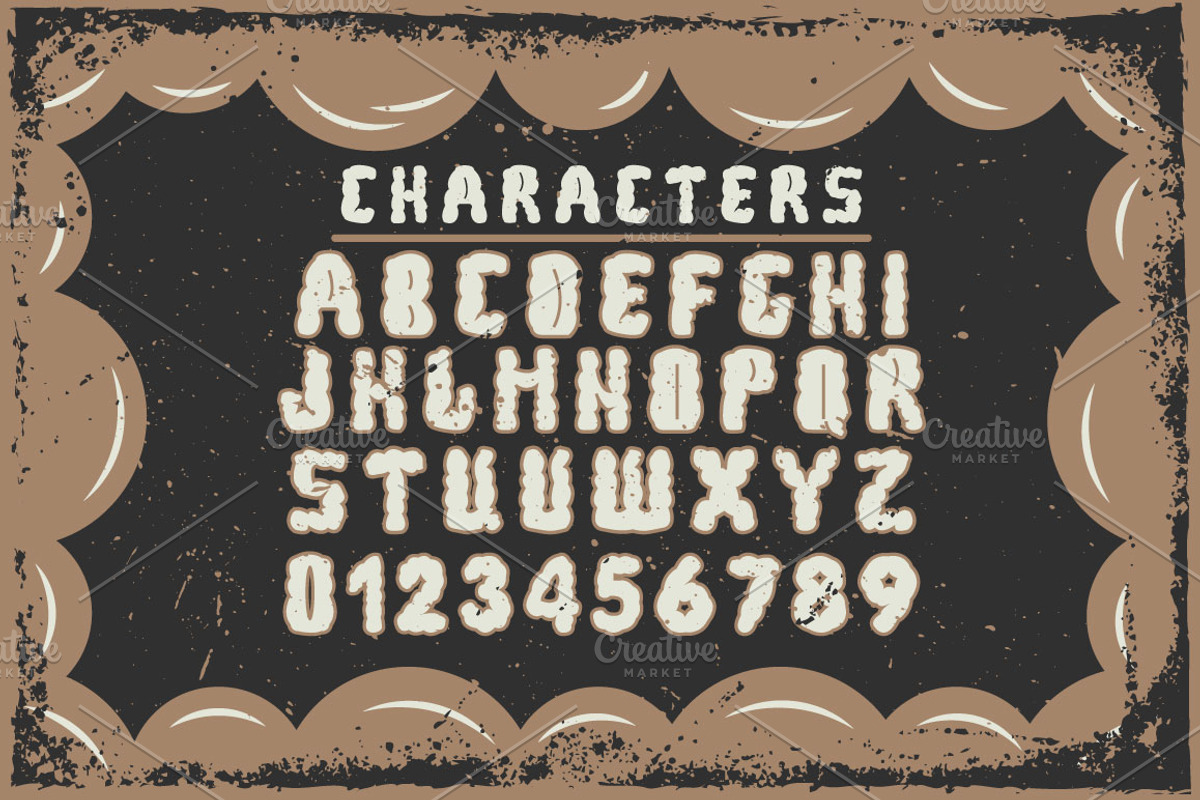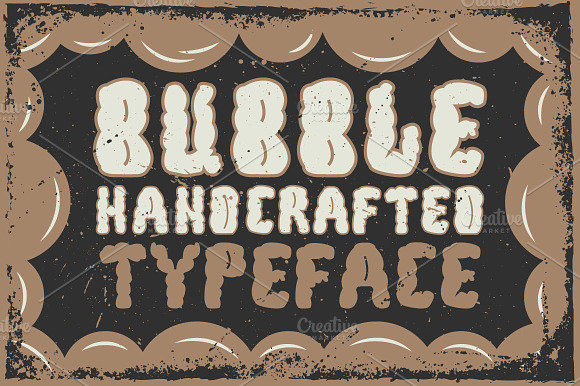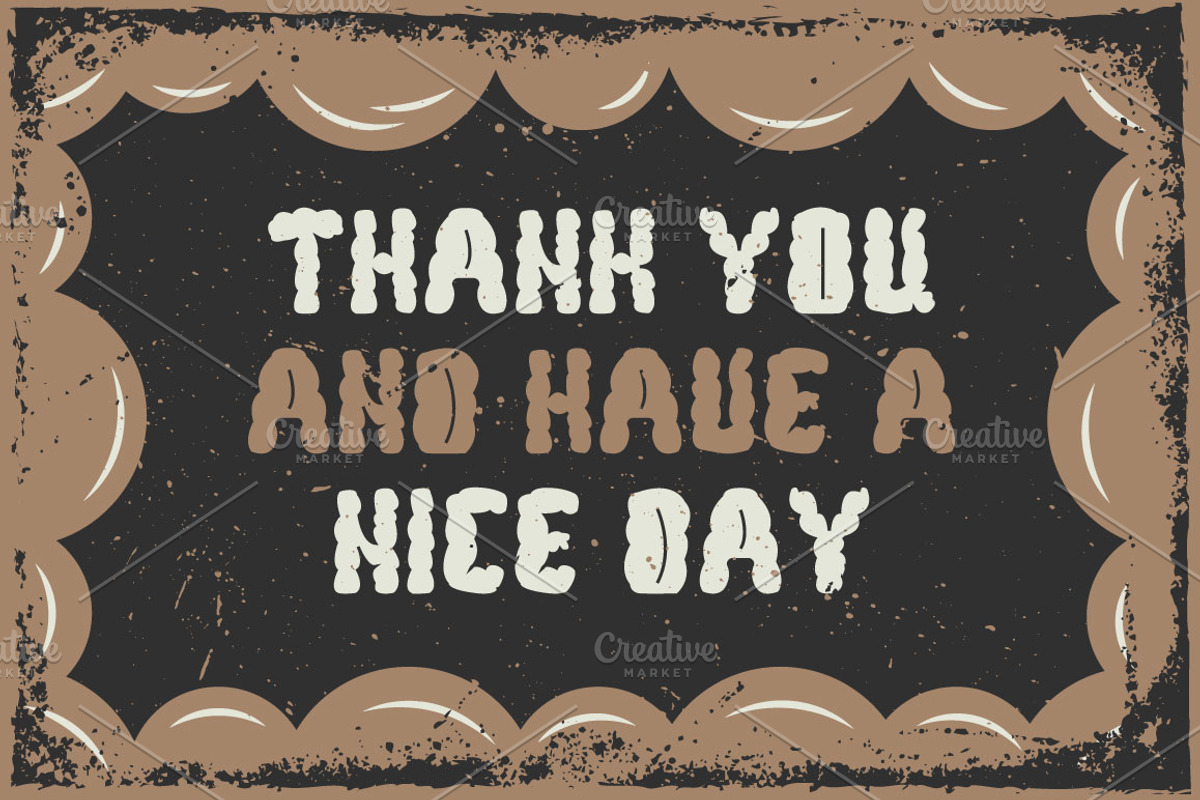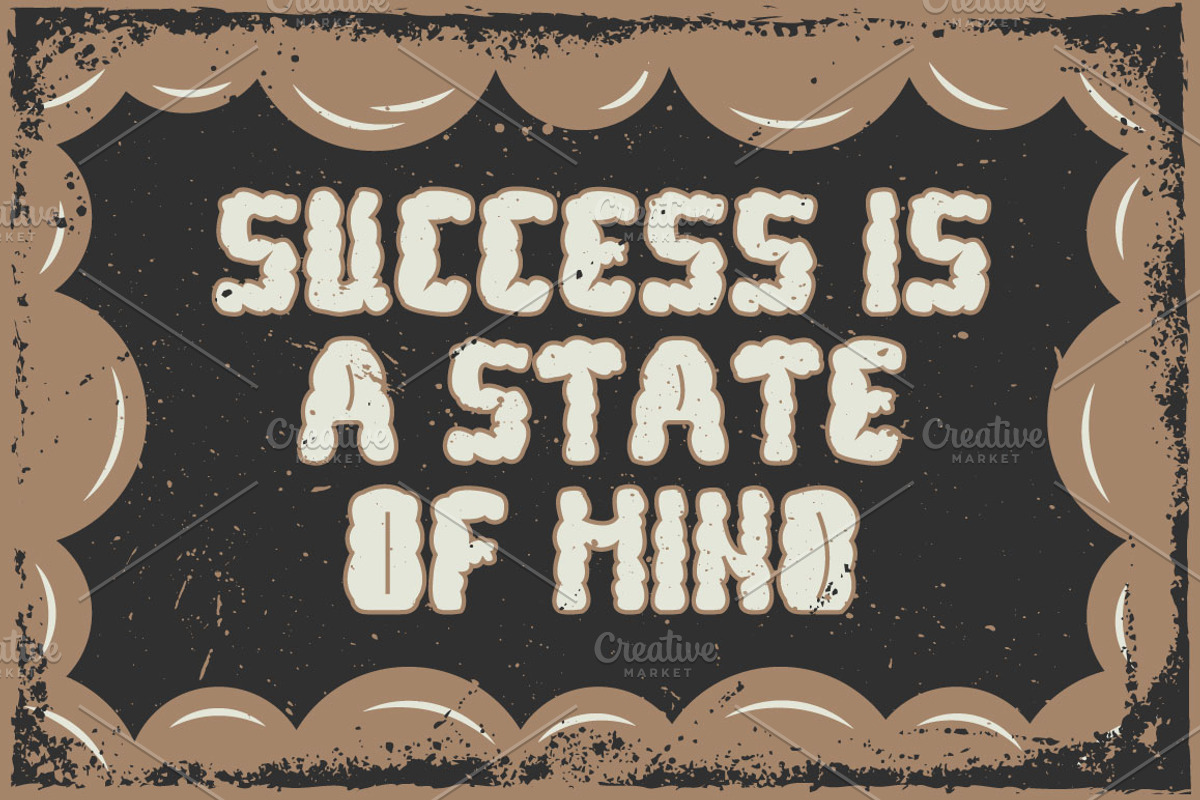
Handcrafted "Bubble" font
Introducing a vintage label typeface called "Bubble". It's made in bubble and vintage label style. Typeface looks great on any label designs and t-shirts.
Handcrafted "Bubble" font by Heatherinsane fits naturally into Branding, posters, packaging, typography.